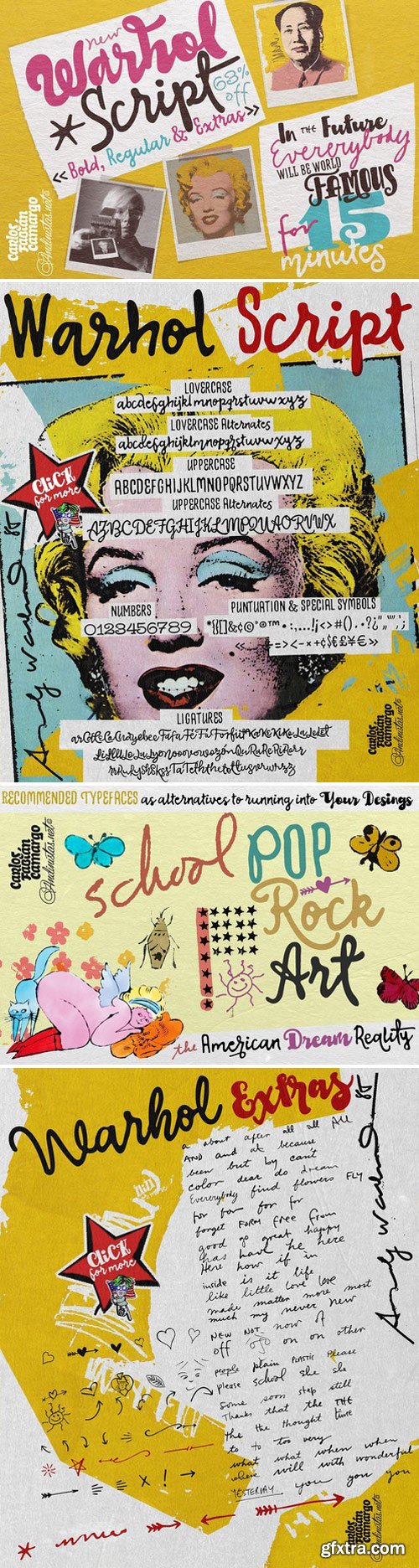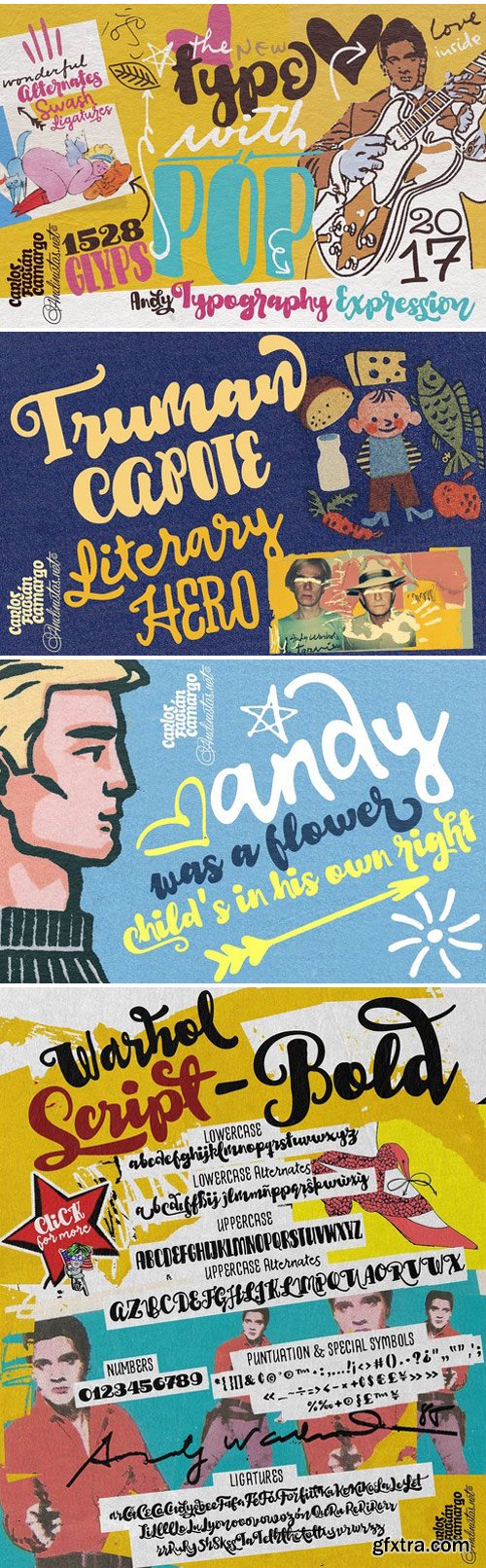
Andinistas.net presents ?Warhol Font Family Intro Offer 63% OFF! NEW?. Until November 15th, 2017, get all 3 files of Warhol Type Family, a typographic pop art piece, for only $21!. Warhol is a font family designed by CFCG. Its 3 fonts work in groups or independent. His carefree soul lies in the sensibility, creativity and abstract motivations listening to the album: The Velvet Underground & Nico released in 1967. Warhol Type Family contains 1528 glyphs to compose words, phrases and short messages on small and large sizes.
Preparations for his typographic design were illustrated by imagining extravagant, fascinating and hard-to-resist ideas, That is why his brushstrokes of the alphabet were born of irregularity, with naive character and expressive drawing, notable with the discordance and instability of drawing by Andy Warhol, infiltrated with pop folk art and artisan harmony. Warhol is a font family offers uppercase, lowercase and numbers that work at the beginning, middle or end of words, achieving calligraphic expressiveness. In that order of ideas Warhol font family offers the following vantages:
• Warhol Script (694 glyphs): handwritten letters drawn with a thin-thickness tool, simulating interesting imperfections in their contours and connections.
* Warhol Script Bold (694 glyphs): Thick letters that appear to be drawn with a brush of inflated and irregular thickness
• Warhol Extras (140 glyphs): Words with letters written with pen, highlighting meaningful criteria that function as perfect companions between words designed in Warhol Script and Bold.